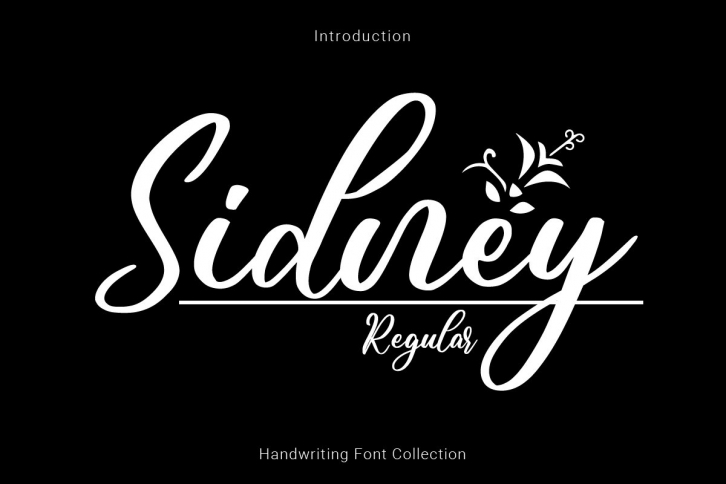
Sidney is a well-balanced handwritten font. It is suitable for any design needs, branding, advertising, quotes, logos, or various other special events.